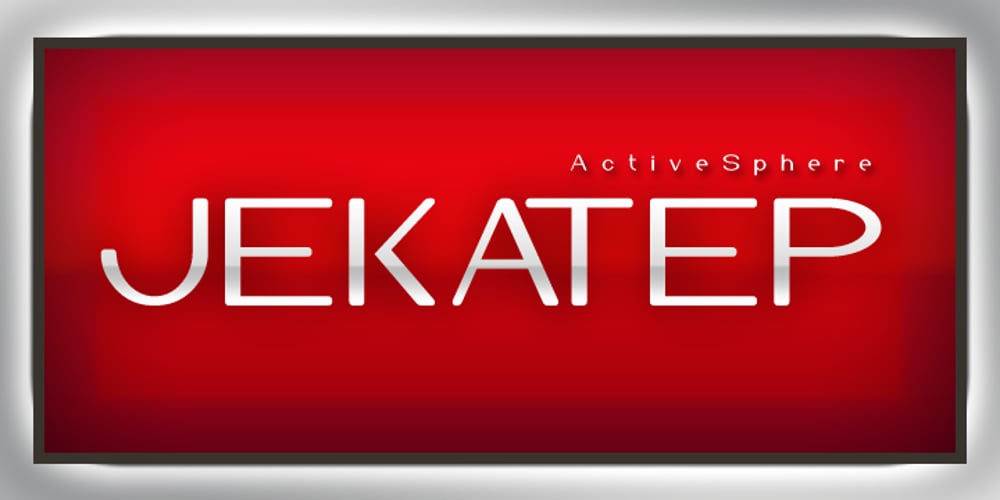
Jekatep
Jekatep font
Jekatep Font Family was designed by Ronnie Dela Cruz and published by ActiveSphere. Jekatep contains 6 styles and family package options. Jekatep is a sans-serif display font and works best in text and display applications, such as posters, headline, magazine, logos, titles, product branding, corporate branding and publishing. Jekatep font has three weights; light, regular, and bold, each available in italic, making a total of six styles. Each style has a full upper and lower-case, accents, punctuation and a selection of monetary symbols. Currently Available for Mac and PC, in Open Type, PostScript or TrueType.